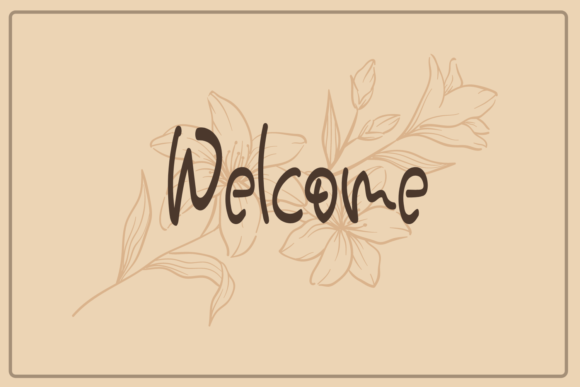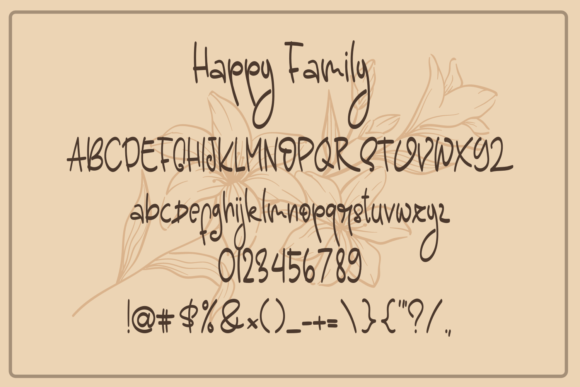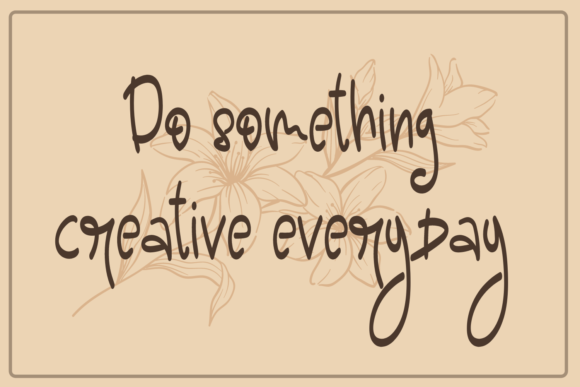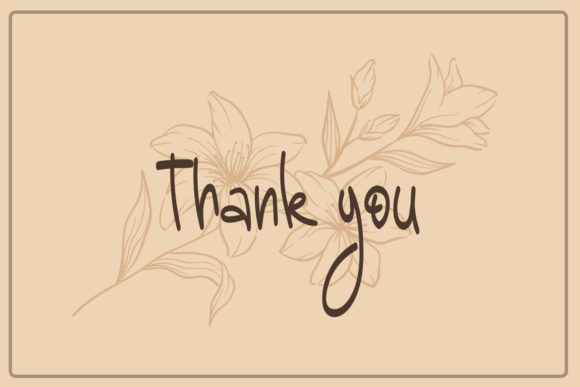
Introducing Happy Family Font: The Perfect Script Font for Designers and Crafters
Are you a designer or crafter looking for a font that exudes warmth, simplicity, and elegance? Look no further than Happy Family Font, a beautiful script font that is perfect for a wide range of creative projects. In this article, we’ll take a closer look at the Happy Family Font, its features, and how you can use it to elevate your designs.
What is Happy Family Font?
Happy Family Font is a simple, natural, and relaxed script font that is designed to bring a touch of warmth and personality to your designs. With its flowing lines and gentle curves, this font is perfect for creating beautiful and eye-catching text that stands out from the crowd.
Key Features of Happy Family Font
- Simple and Elegant Design: Happy Family Font features a simple and elegant design that makes it perfect for a wide range of creative projects.
- Natural and Relaxed Feel: The font has a natural and relaxed feel that gives it a friendly and approachable vibe.
- Highly Versatile: Happy Family Font can be used for various purposes such as logos, wedding invitations, headings, t-shirts, letterhead, signage, labels, news, posters, badges, and more.
- Easy to Read: The font is highly legible, making it perfect for body text and headlines.
Use Cases for Happy Family Font
Happy Family Font is an incredibly versatile font that can be used for a wide range of creative projects. Here are some use cases to get you started:
- Wedding Invitations: Create beautiful and elegant wedding invitations that set the tone for the big day.
- Logos and Branding: Use Happy Family Font to create a unique and memorable logo that reflects your brand’s personality.
- Signage and Posters: Create eye-catching signage and posters that grab attention and communicate your message.
- T-Shirts and Apparel: Design custom t-shirts and apparel that feature your favorite quotes or phrases.
- Stationery and Letterhead: Add a touch of elegance to your stationery and letterhead with Happy Family Font.
Why Choose Happy Family Font?
So, why choose Happy Family Font over other script fonts? Here are a few reasons:
- Unique and Handcrafted Design: Happy Family Font features a unique and handcrafted design that sets it apart from other fonts.
- High-Quality Typography: The font is designed with high-quality typography in mind, ensuring that your text looks crisp and clear.
Tips for Using Happy Family Font
Here are a few tips for using Happy Family Font in your designs:
- Use it for Headlines and Titles: Happy Family Font is perfect for headlines and titles, where you want to make a bold statement.
- Pair it with Other Fonts: Experiment with pairing Happy Family Font with other fonts to create a unique and interesting look.
- Use it for Body Text: While Happy Family Font is perfect for headlines, it can also be used for body text, especially for short paragraphs.
In conclusion, Happy Family Font is a beautiful and versatile script font that is perfect for designers and crafters. With its simple, natural, and relaxed design, it’s ideal for a wide range of creative projects, from wedding invitations to logos and branding. Whether you’re looking for a font that’s elegant, easy to read, or highly versatile, Happy Family Font is a great choice.